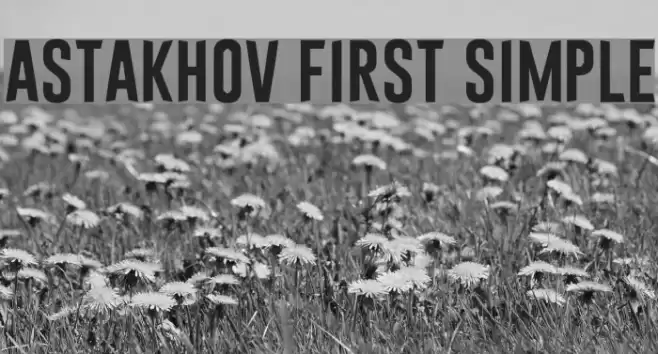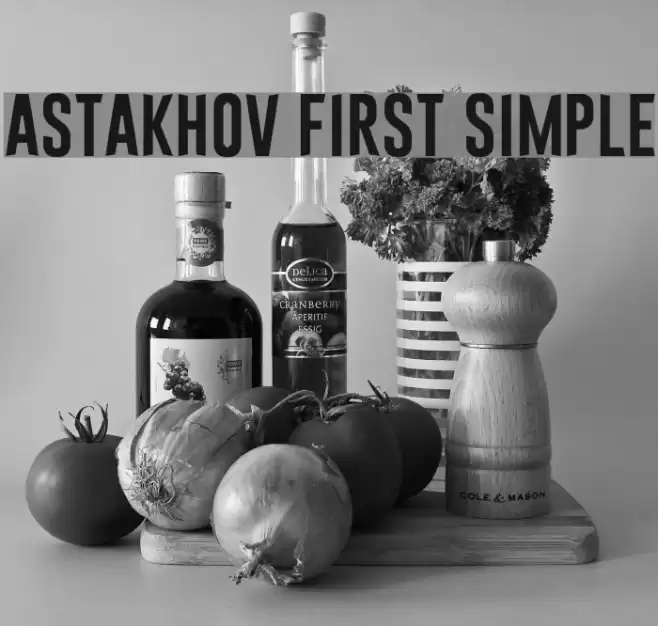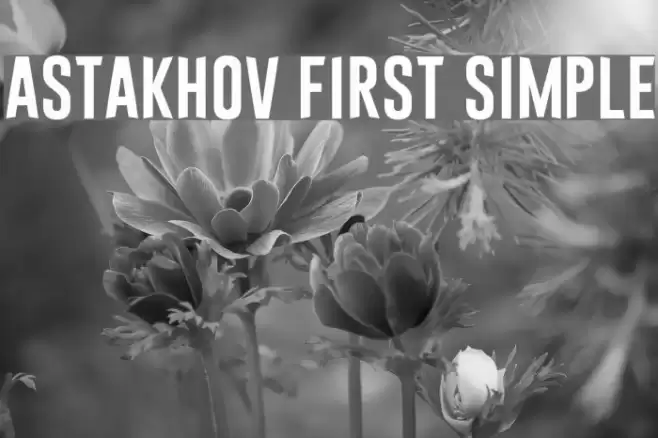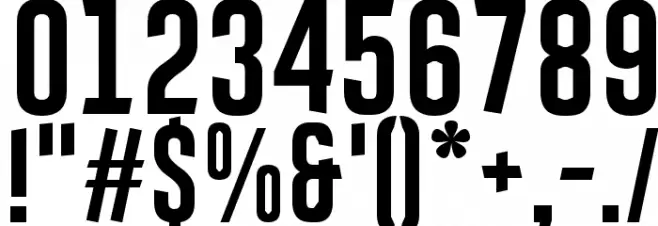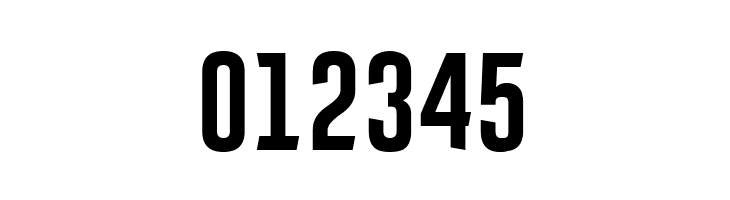
Astakhov First Simple Font
Astakhov First Simple Description
This font features bold, uppercase and lowercase letters with a strong, impactful presence. The characters are uniformly thick, creating a sense of stability and confidence. The numbers and special characters maintain the same weight and style, ensuring consistency across all text elements. The design is straightforward, with clean lines and minimal embellishments, making it highly legible and suitable for a variety of uses. Its bold nature makes it stand out, perfect for grabbing attention in headlines or signage.
A bold, impactful font with clean lines and strong presence from Uncategorized fonts.
- Proposed Projects: Ideal for headlines, posters, signage, and branding materials where a strong, attention-grabbing font is needed.